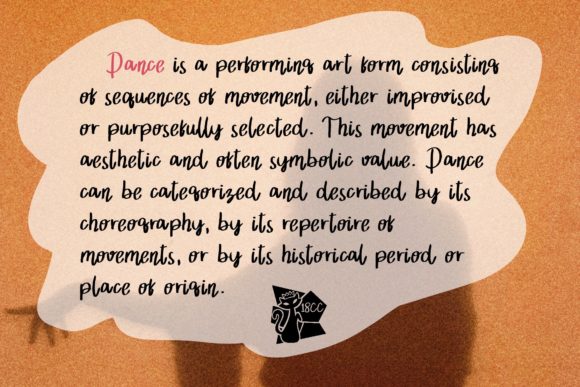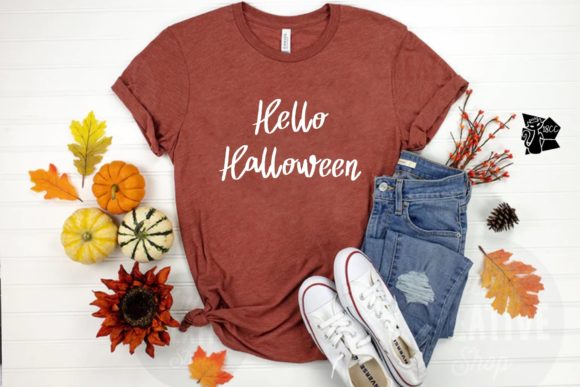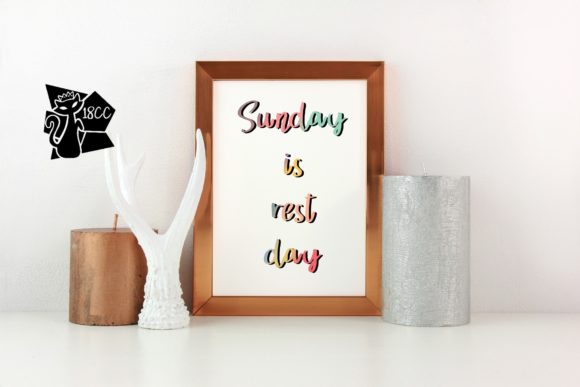
About Lallaland Font
Lallaland is a chic, refined script font that emanates sophistication and elegance. Its stylish alternates and ligatures make this font the perfect match for any project.